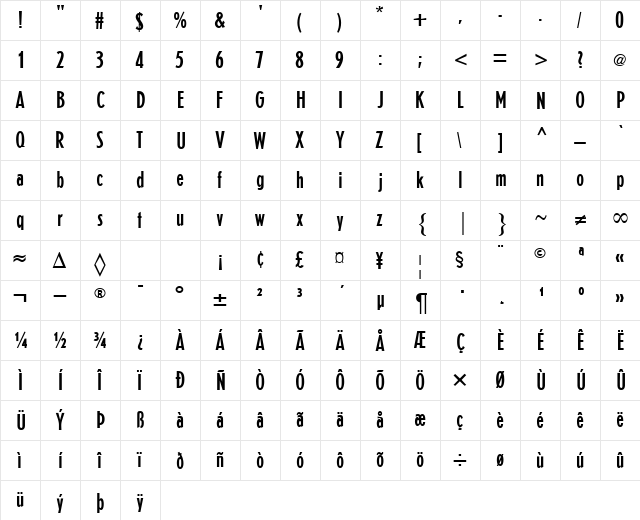
Erbar DB Regular
Design Context for Erbar DB Typeface
Erbar DB offers clean, dependable letterforms without strong stylistic allegiance, making it a practical choice for designers who need flexibility.
Pro Tip: Pair Erbar DB with a font of contrasting weight or personality to build a more expressive typographic hierarchy.